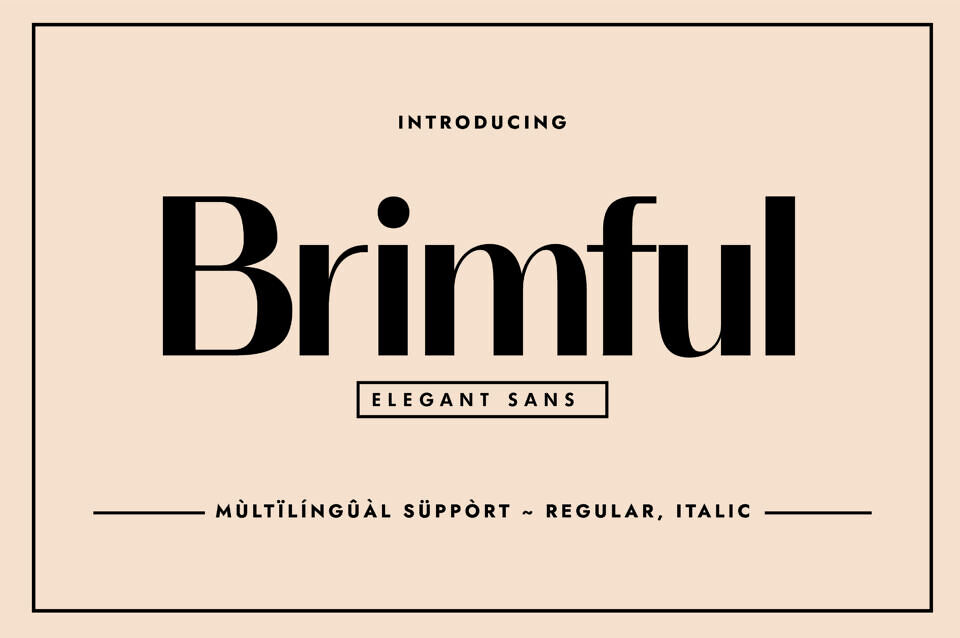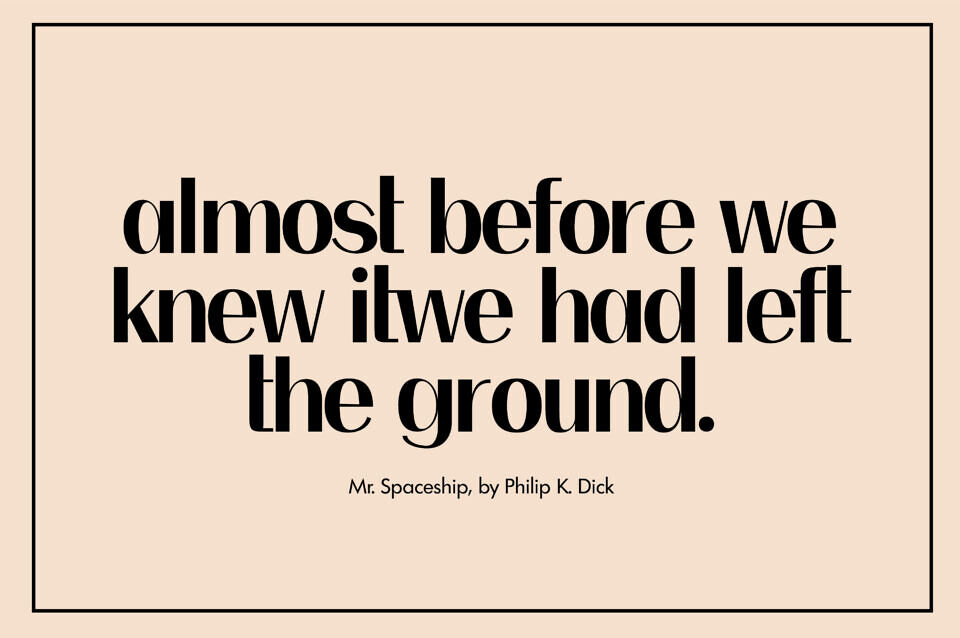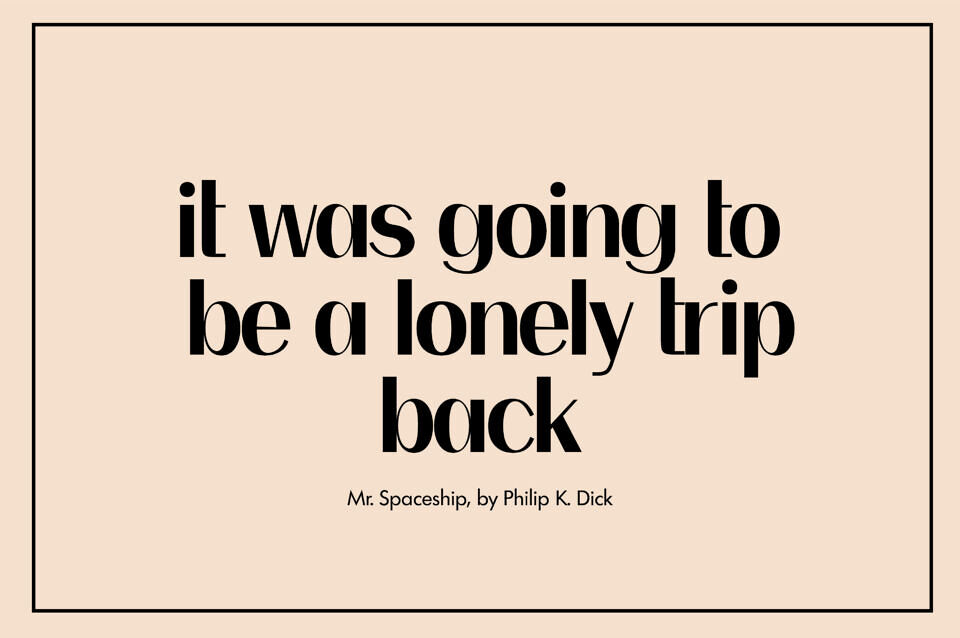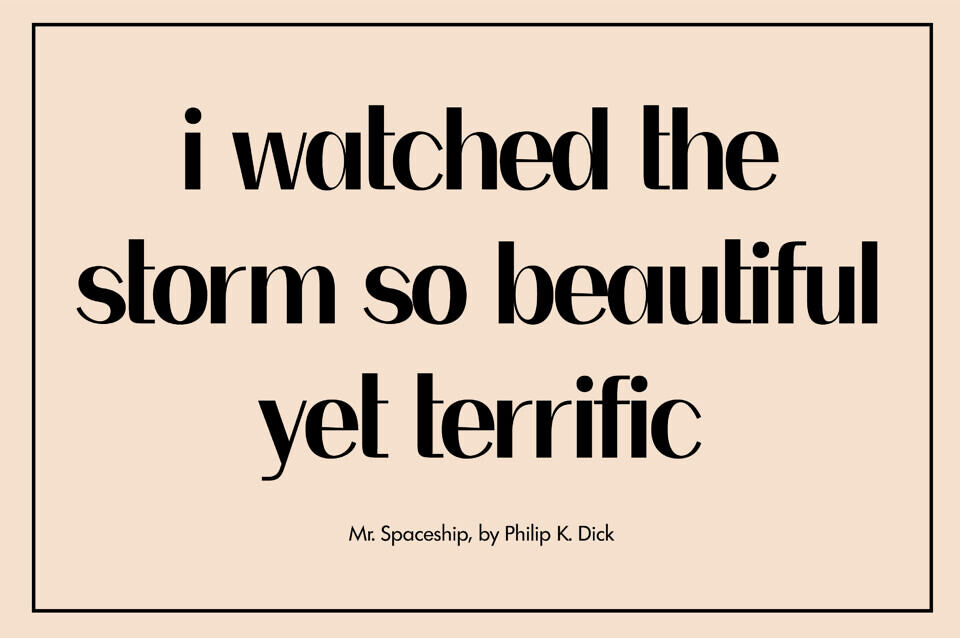
Introducing “Brimful” – the epitome of sophistication in typography. This elegant sans serif typeface strikes the perfect balance between modernity and grace, elevating any design with its delicate strokes and refined curves.
Whether crafting invitations, designing logos, or enhancing websites, Brimful exudes timeless elegance and versatility. Make a statement with subtlety this summer – choose Brimful for your design needs.